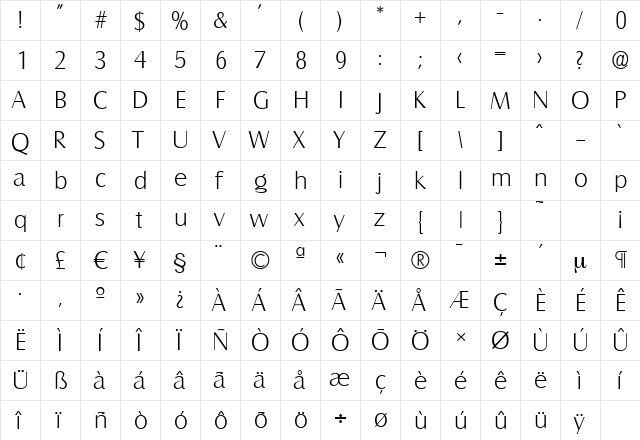
SalzburgSerial-Xlight Regular
Design Context for SalzburgSerial-Xlight Typeface
SalzburgSerial-Xlight is a composed and adaptable typeface that performs quietly and consistently across a wide range of design contexts. Its slender proportions lend an understated elegance to any composition.
Pro Tip: Use SalzburgSerial-Xlight in both headline and body roles to test its range before committing to a single application.